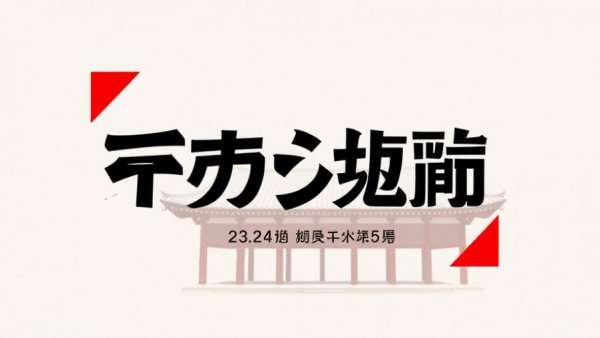
Unlocking the Power of Japanese-Style Fonts in Design Projects
Modern Japanese-style fonts in commercial design project with temple roof.
Exploring the Allure of Japanese-Style Fonts for Your Design Projects
Japanese typography transcends simple lettering; it embodies a rich cultural narrative that enhances design projects on many levels. Whether you're a freelance graphic designer looking for unique branding tools or a business owner seeking an authentic touch for your product packaging, Japanese-style fonts are a specialized avenue worth exploring. With their roots in traditional art, these fonts blend beautifully into a variety of commercial design projects, from restaurant menus to brand logos.
Why Choose Japanese-Style Fonts?
In a world where aesthetic appeal significantly influences consumer decisions, integrating Japanese-style fonts into your designs can elevate branding by establishing cultural relevance and authenticity. Such fonts not only enhance visual appeal—they also convey brand values. For instance, they evoke simplicity and harmony, which can align seamlessly with minimalist or elegant branding.
A Rich Selection of Japanese-Style Fonts
This article delineates an extensive collection of 35+ carefully curated Japanese-style fonts, including both free and premium options. Not only do these fonts cater to designers looking to evoke cultural themes, but they also ensure readability, catering to diverse audiences. For example, the Aokami font melds traditional style with modern clarity, making it an excellent choice for posters and branding projects.
Diverse Options for Every Design Need
Here are some standout fonts in the collection:
• Tatsukaze: A decorative font ideal for creative projects, offering hand-written aesthetics while supporting multiple languages.
• Majisora Tenshei: With bold brush strokes, this font captures the essence of traditional calligraphy infused with a modern flair.
• Kurhamo: Resembling hand-painted writing, it is perfect for design projects that need a calm and flowing appearance.
Each font can contribute a distinct identity to your projects, whether they are digital or print, showcasing the flexible applications of these typographies.
Choosing the Right Font for Your Project
When selecting a Japanese-style font, consider the audience and purpose of your design. Ask yourself: Does the font resonate culturally? Is it readable for its intended use? Fonts that encapsulate the aesthetic of Japanese culture can forge a deeper connection between your brand and its audience.
Introducing a New Dimension to Your Design
As you embark on your design journey with these fonts, remember that incorporating elements of Japanese design can yield surprising results. Such fonts can help create a cohesive visual style across different platforms, whether you're working on social media graphics, publications, or culinary branding.
Lessons from the World of Functional Typography
Typography is more than just letters on a page; it tells a story. The right choice can transform an ordinary design into an extraordinary visual narrative. Designers frequently utilize fonts inspired by traditional art forms because they encapsulate years of cultural heritage and craftsmanship, making each design resonates more profoundly with the audience.
Conclusion: Embrace the Unique
With an abundance of choices available, from the Zenjirou display style to the more intricate Subasa font, there’s undoubtedly a Japanese-style font that aligns with your design needs. Explore the rich and varied world of Japanese typography to find the font that captures the essence of your project. So why wait? Dive into the array of available options and elevate your design work!
For those seeking to level up their design projects with striking visuals, remember that Japanese-style fonts could be the key to creating authentic and culturally resonant work.